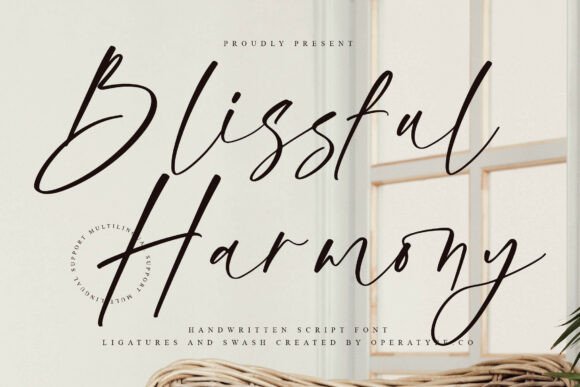
Unlock the Secret to Luxurious Designs with Blissful Harmony Font
Have you ever been in the middle of a design project, pouring your heart and soul into every detail, only to realize that something is missing? You’re not alone! I’ve been there too. It was during one of those moments, working on a branding project for a high-end client, that I stumbled upon the Blissful Harmony font. This elegant script font has been a game-changer for me, and I’m excited to share its beauty with you.
The Birth of Blissful Harmony
Blissful Harmony was crafted with the intention of capturing the essence of natural handwriting, while still maintaining a polished, professional look. Its creator aimed to design a font that exudes luxury, elegance, and sophistication, making it perfect for high-end branding, logos, and creative designs.
What Makes Blissful Harmony Special?
So, what sets Blissful Harmony apart from other script fonts? Here are some of its key features:
• ✨ Elegant and Modern Appeal: Ideal for logos, branding, invitations, and other creative designs.
• ✅ Easy to Customize: Includes alternative characters, ligatures, and swashes for a more personalized look.
• 🌎 Multilingual Support: Equipped with international characters for wider usability.
• 📱 Responsive Display: Looks stunning on both small and large screens, in print and digital formats alike.
I’ve had the pleasure of working with Blissful Harmony on several projects, and here’s my honest review:
• ✨ The font’s unique character design, which gives it a natural, hand-written feel.
• ✅ The ease of customization, which allows me to tailor the font to my client’s specific needs.
• 🌈 The wide range of applications, from branding and logos to social media content and merchandise design.
• 🤔 The font can be a bit tricky to pair with other fonts, so some experimentation is required.
• ⚠️ The font’s elegance may not be suitable for very casual or playful designs.
Q: Is Blissful Harmony suitable for body text?
A: While Blissful Harmony is an elegant font, it’s best suited for headlines and titles. For body text, a clearer font may be more readable.
Q: Does Blissful Harmony support non-English characters?
A: Yes, Blissful Harmony includes multilingual support, making it suitable for designs that require international characters.
Blissful Harmony is a versatile and elegant script font that’s perfect for designers, crafters, and creative hobbyists looking to add a touch of luxury to their designs. With its unique character design, ease of customization, and wide range of applications, it’s an excellent addition to any design toolkit.